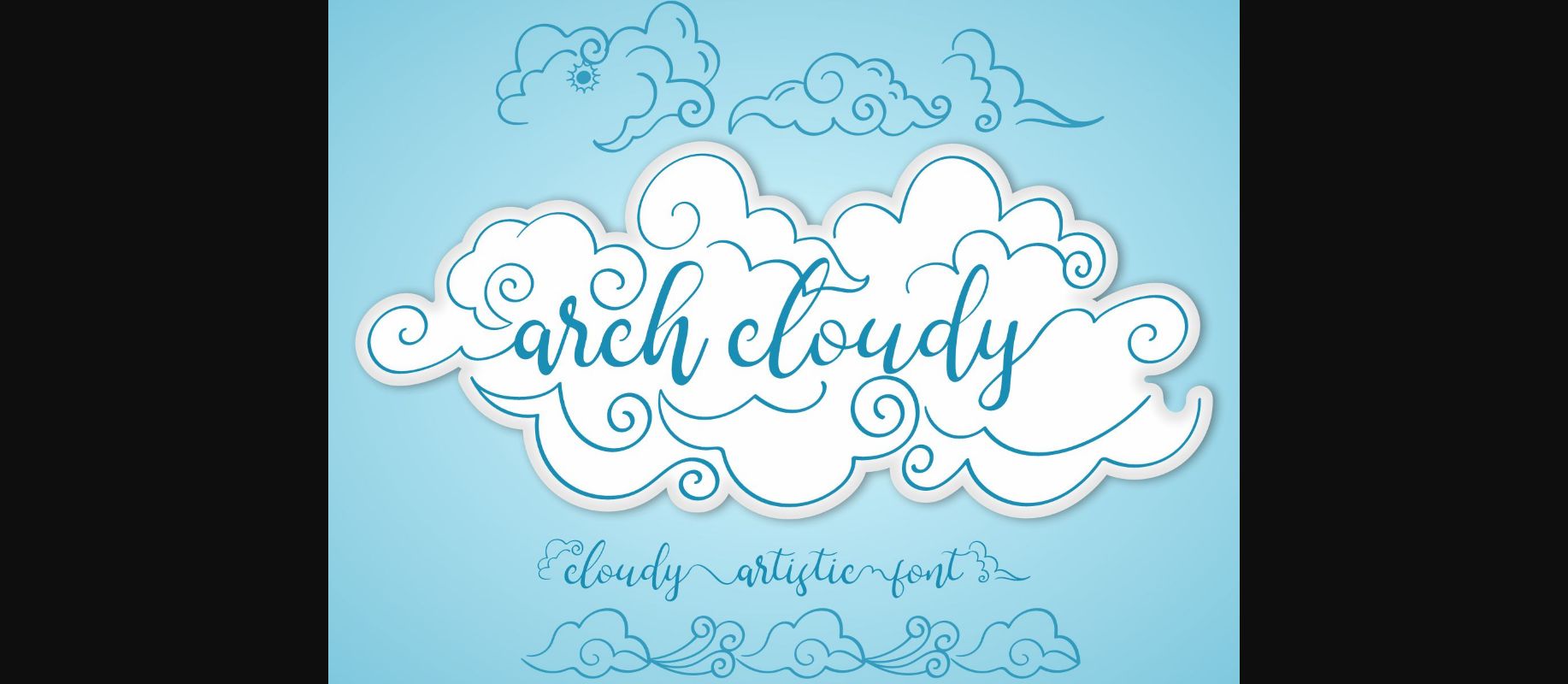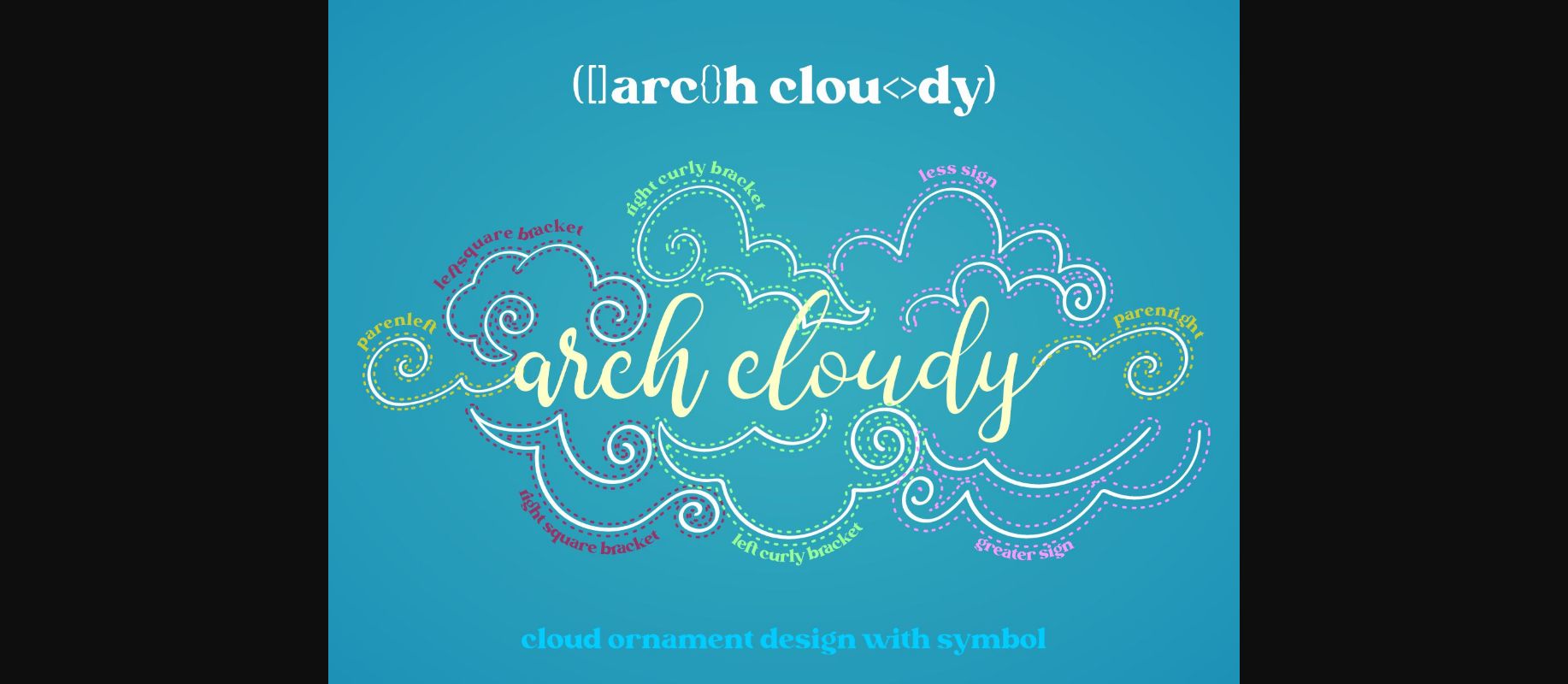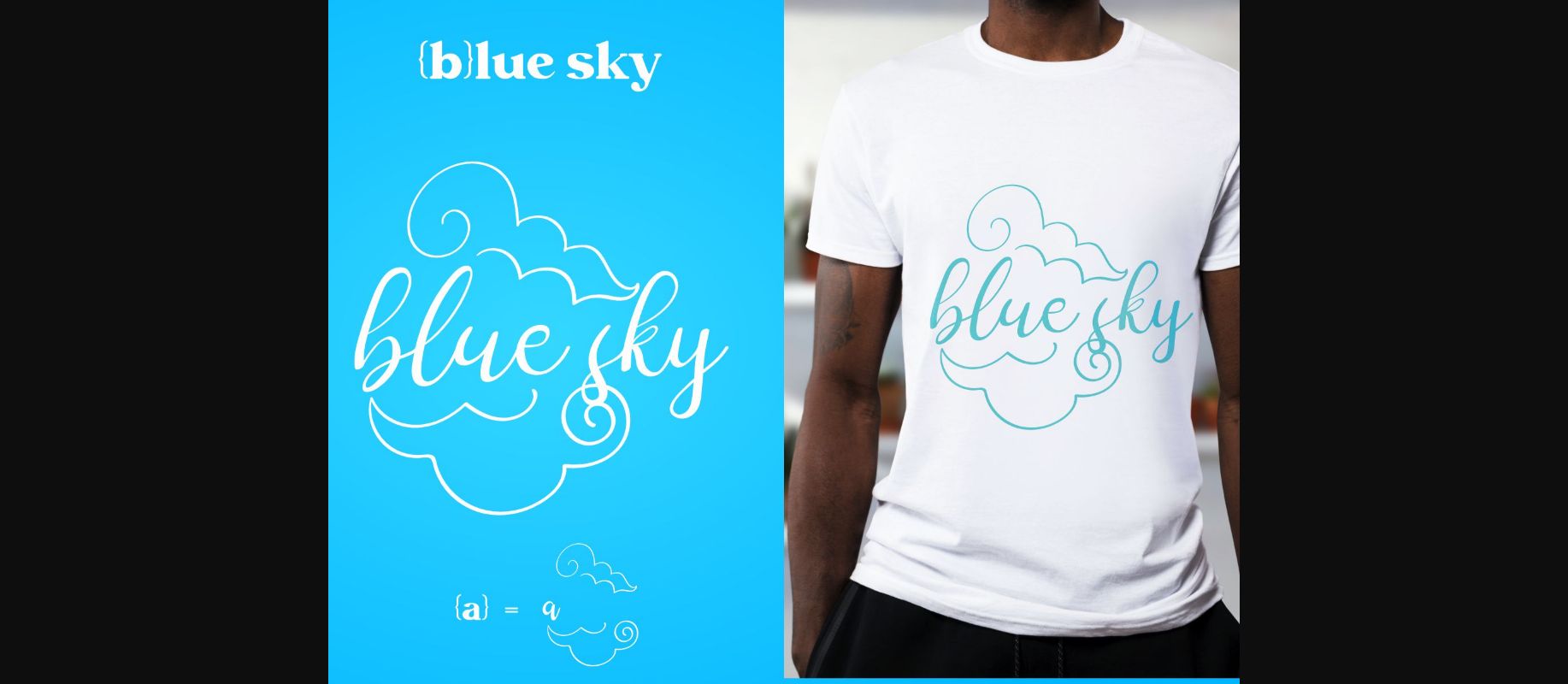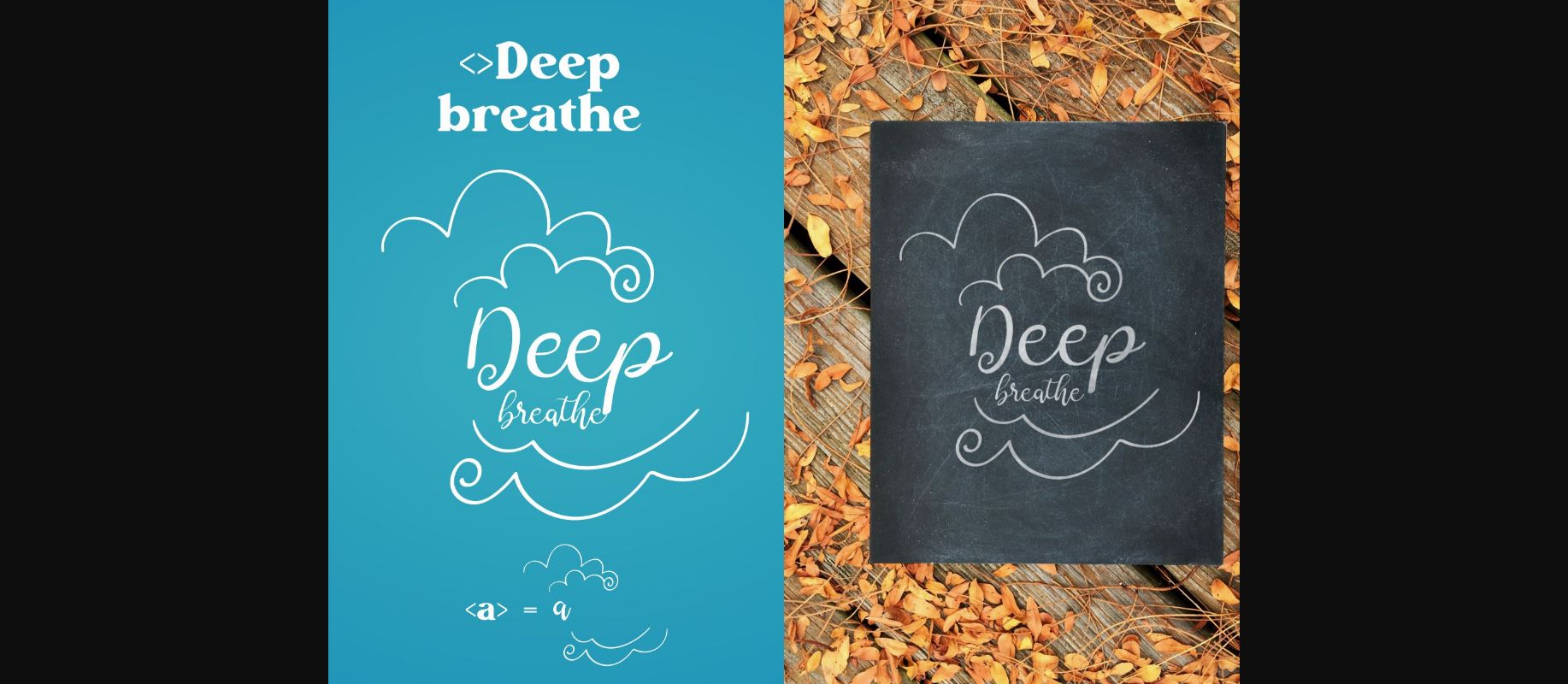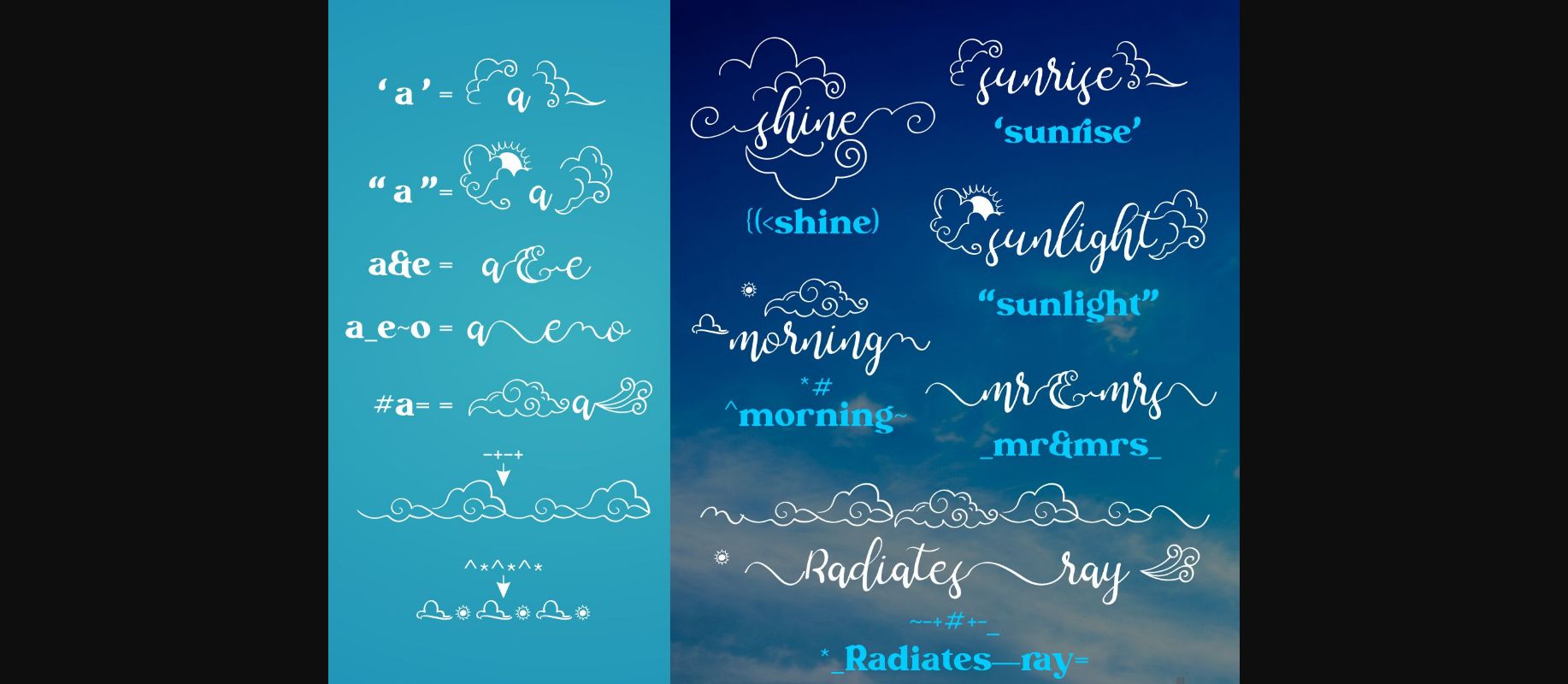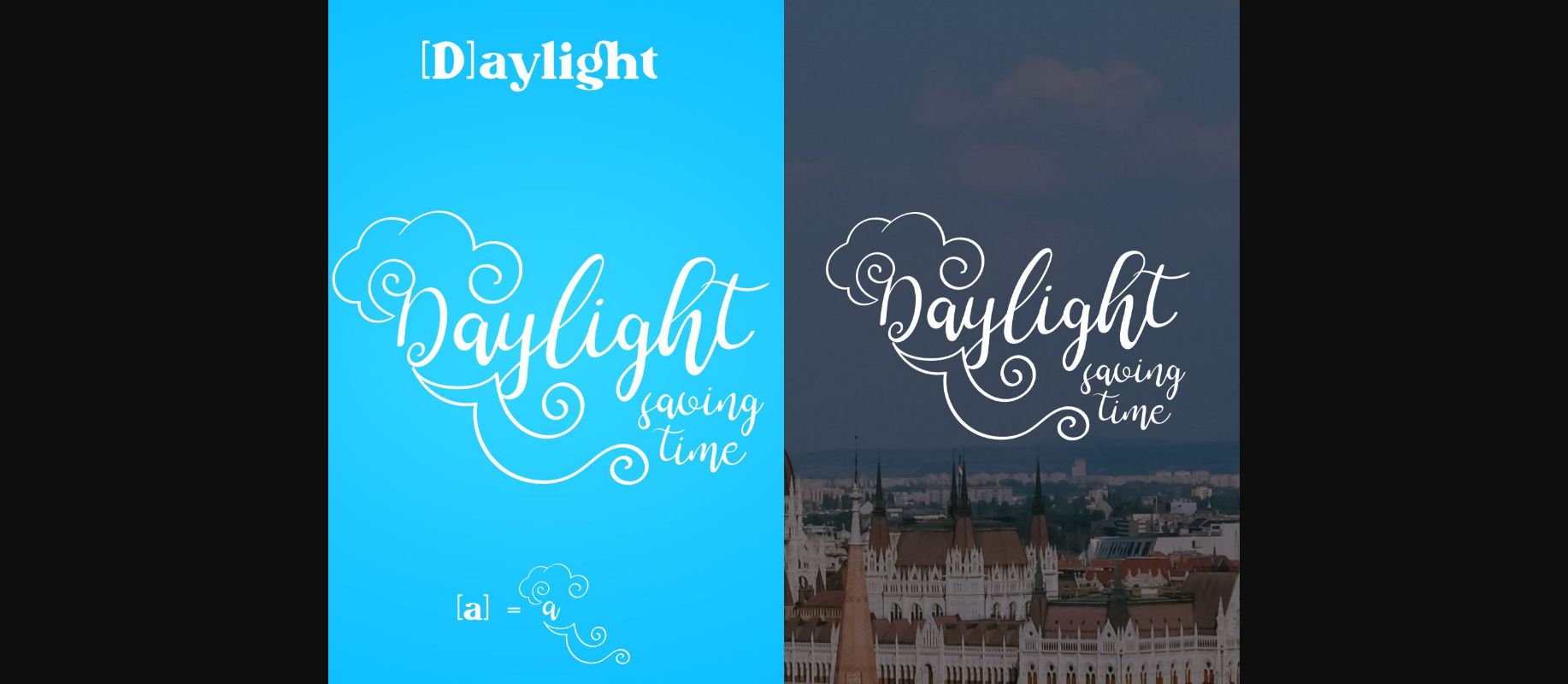
Arch Cloudy Font
Arch Cloudy is a stylish font decorated with gorgeous cloud ornaments. You can make beautiful calligraphy writing by simply adding beautiful ornaments by typing symbols.
It looks stunning on wedding invitations, thank you cards, quotes, greeting cards, logos, business cards and every other design which needs a handwritten touch.